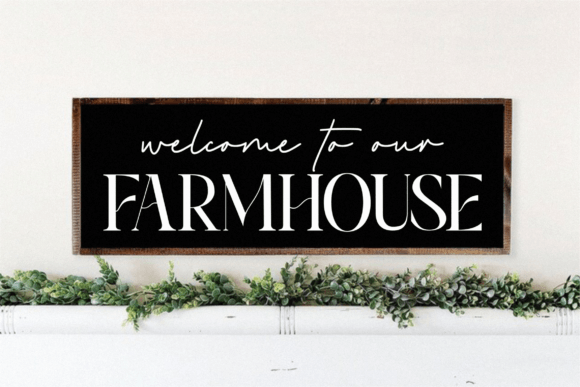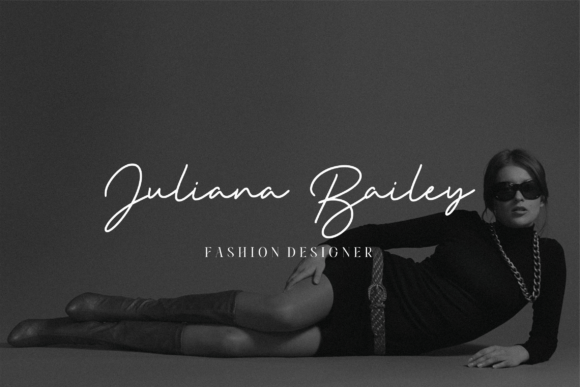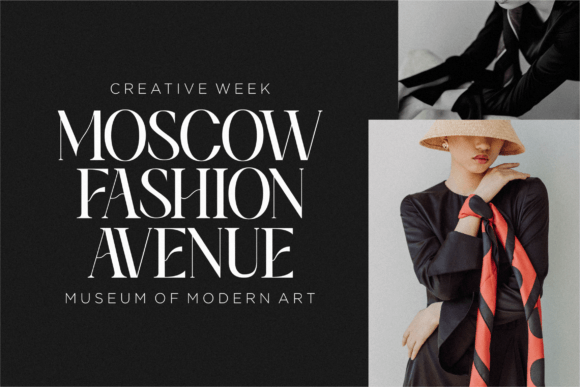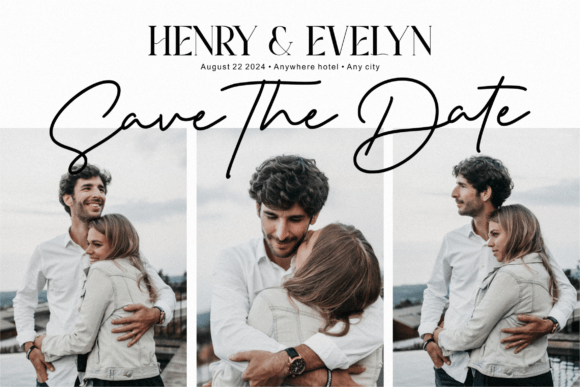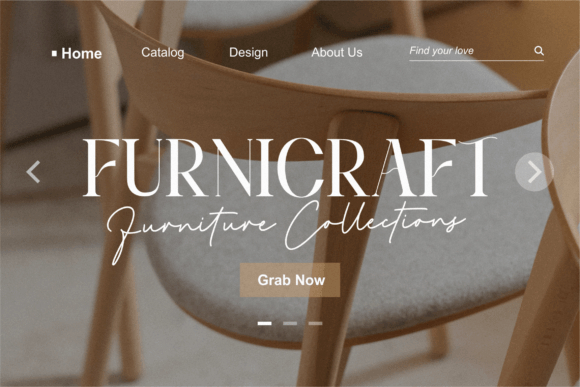
Peachy Flighton Duo Font
Peachy Flighton is a luxurious font duo that epitomizes elegance and sophistication. The serif font exudes timeless charm and refinement, while the script font adds a touch of graceful fluidity. Perfect for upscale branding, wedding invitations, and editorial designs, Peachy Flighton radiates beauty and class in every stroke and curve.